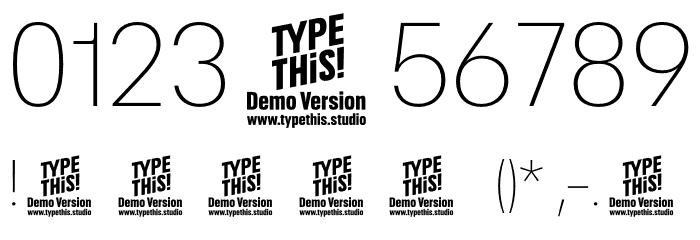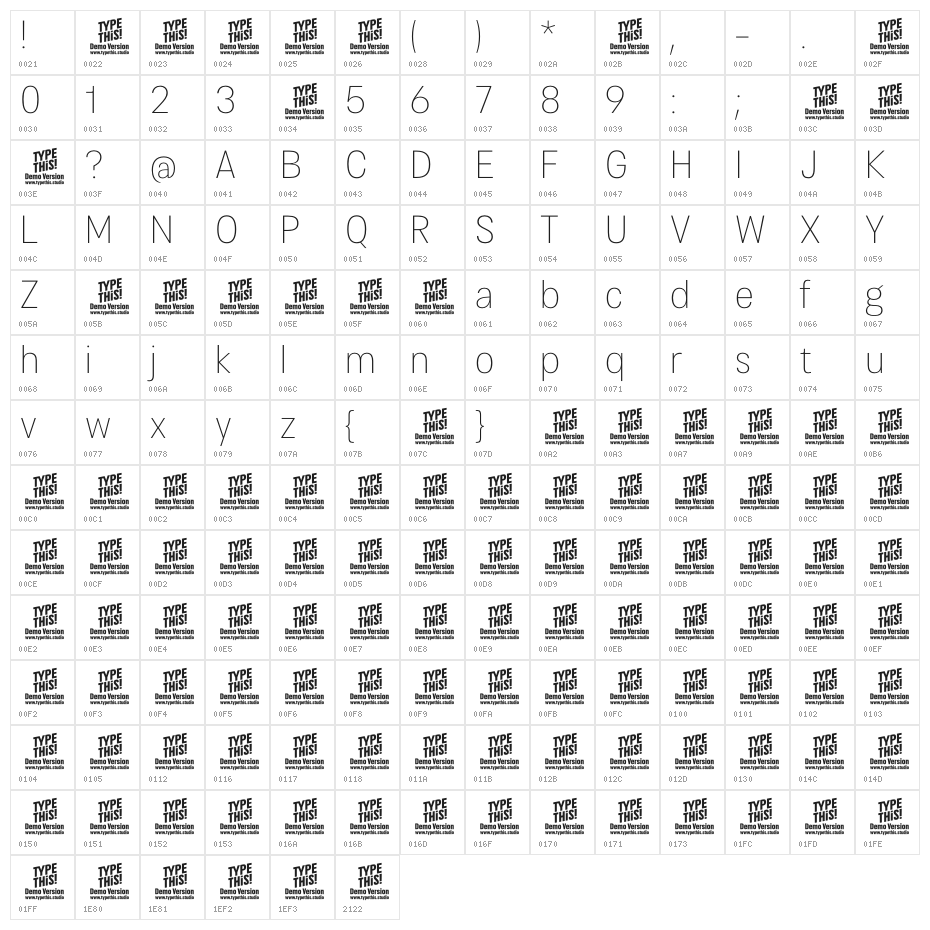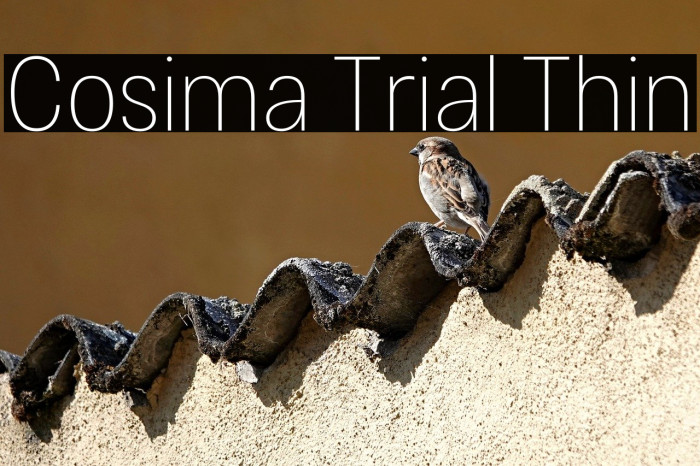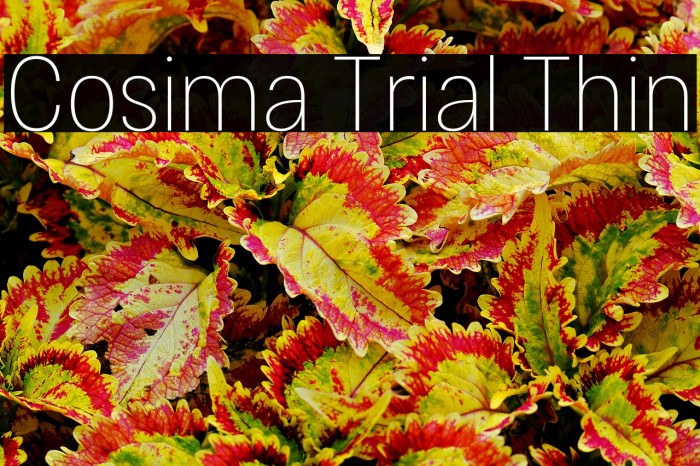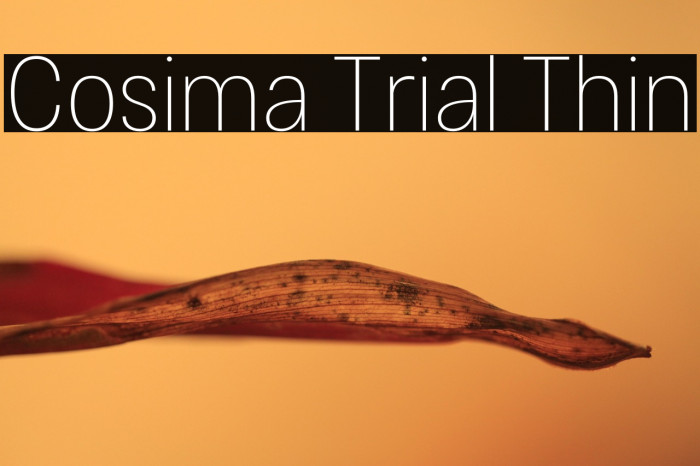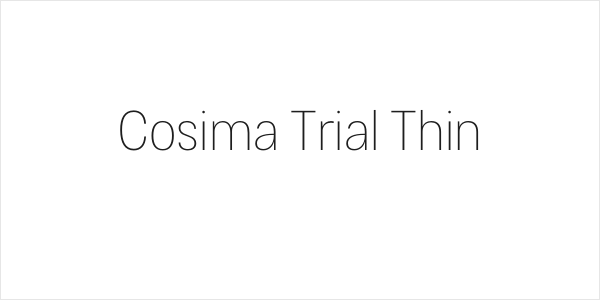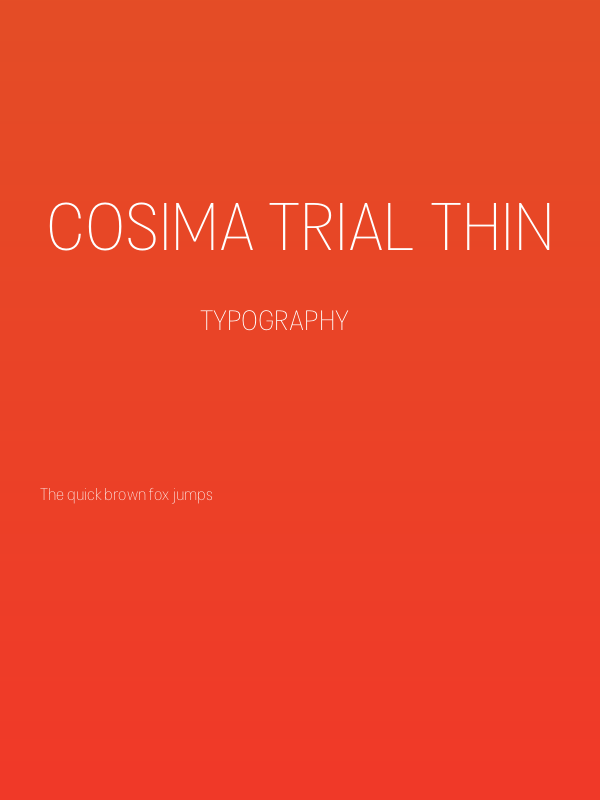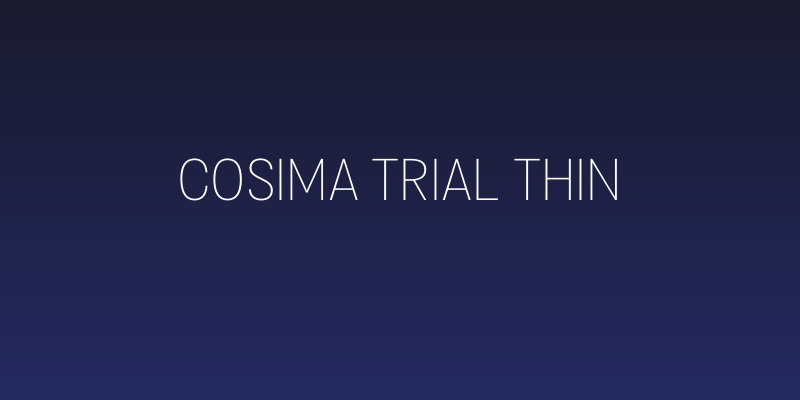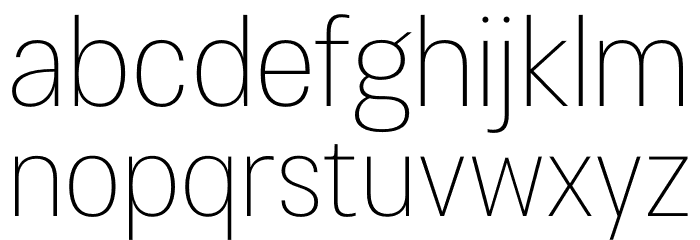
Cosima Trial Thin Font
Cosima Trial Thin Description
This font presents a sleek and modern aesthetic with its thin, elongated letterforms. The characters are crafted with precision, featuring clean lines and a minimalist design that enhances readability while maintaining a stylish appearance. The uppercase and lowercase letters are well-proportioned, offering a harmonious balance across the alphabet. The numerals and special characters follow the same design principles, ensuring consistency throughout. This font's thin strokes and open counters give it an airy feel, making it ideal for contemporary design projects where clarity and elegance are paramount.